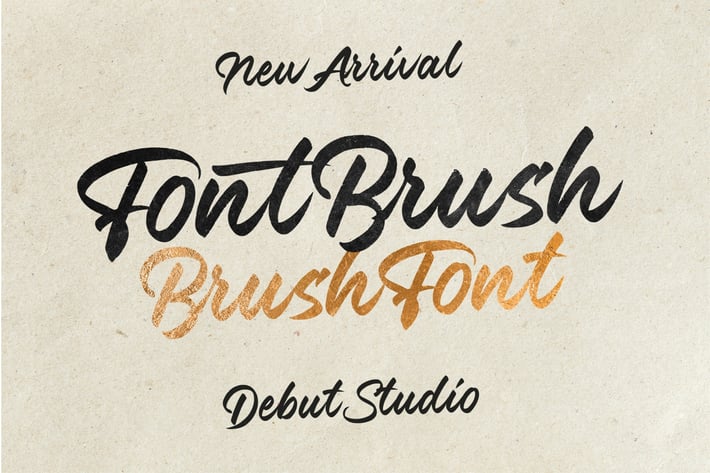
Font Brush - Brush Font
Debut Studio Presents Font Brush - Brush Font
Font Brush - Brush Font is The latest Brush Font created using a Brush Pen, made as natural as possible so that it displays an attractive handwritten impression so that it can be applied to various design needs, ranging from logotypes, lettering quotes for social media needs, Instagram, Facebook, and others. Suitable used for wedding invitation designs, besides that the Font Brush - Brush Font is also very suitable to be applied to the media of t-shirts and other fashion needs.
Font Brush - Brush Font will be very helpful in your designing activities that require a natural, original hand-made brush font.
Number & Punctuation
Multiple Language & Stylistic Alternate